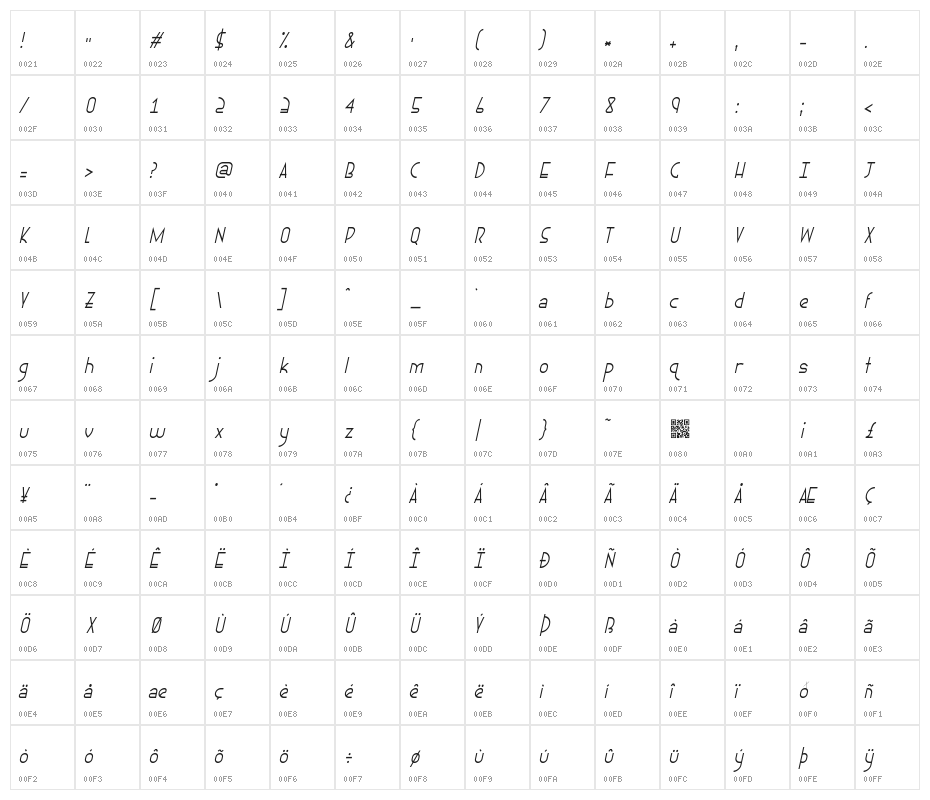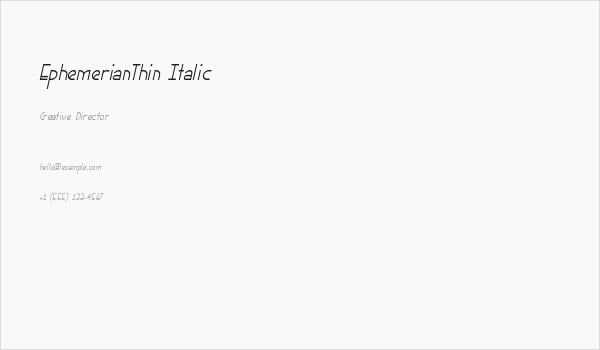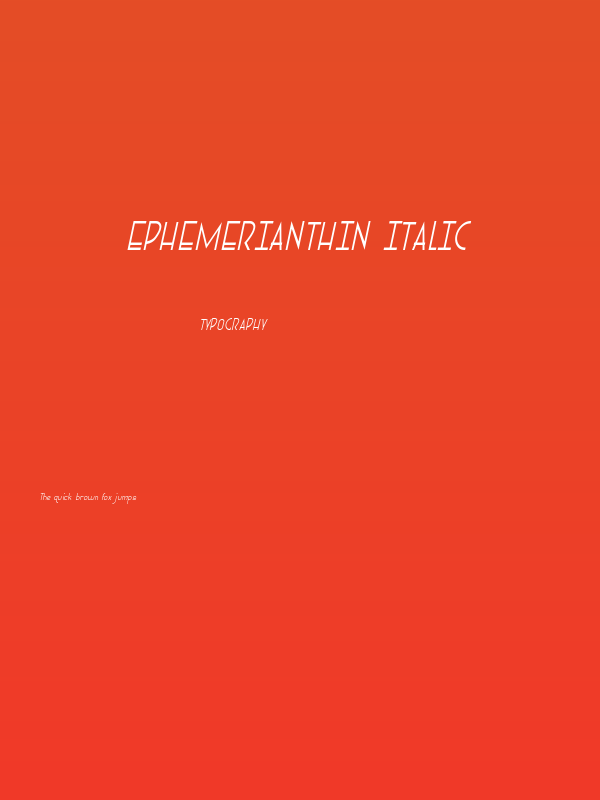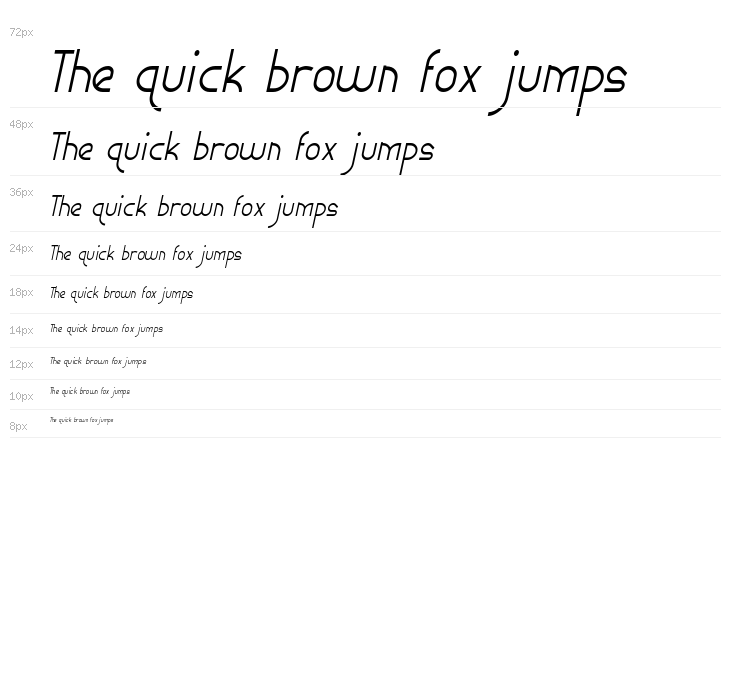
EphemerianThin Italic Font
EphemerianThin Italic Description
This font features a sleek, modern design with a thin, italicized style. The characters are elegantly slanted, giving a sense of motion and fluidity. The uppercase letters are distinct with sharp angles and clean lines, while the lowercase letters maintain a consistent flow, enhancing readability. The numerals are uniquely styled, with a slight curvature that complements the overall aesthetic. Special characters are well-integrated, maintaining the font's cohesive look. The thin strokes and italic slant make it ideal for projects that require a sophisticated and contemporary touch.
| Proposed Projects | Ideal for fashion magazines, modern branding, elegant invitations, and digital media that require a contemporary and stylish appearance. |